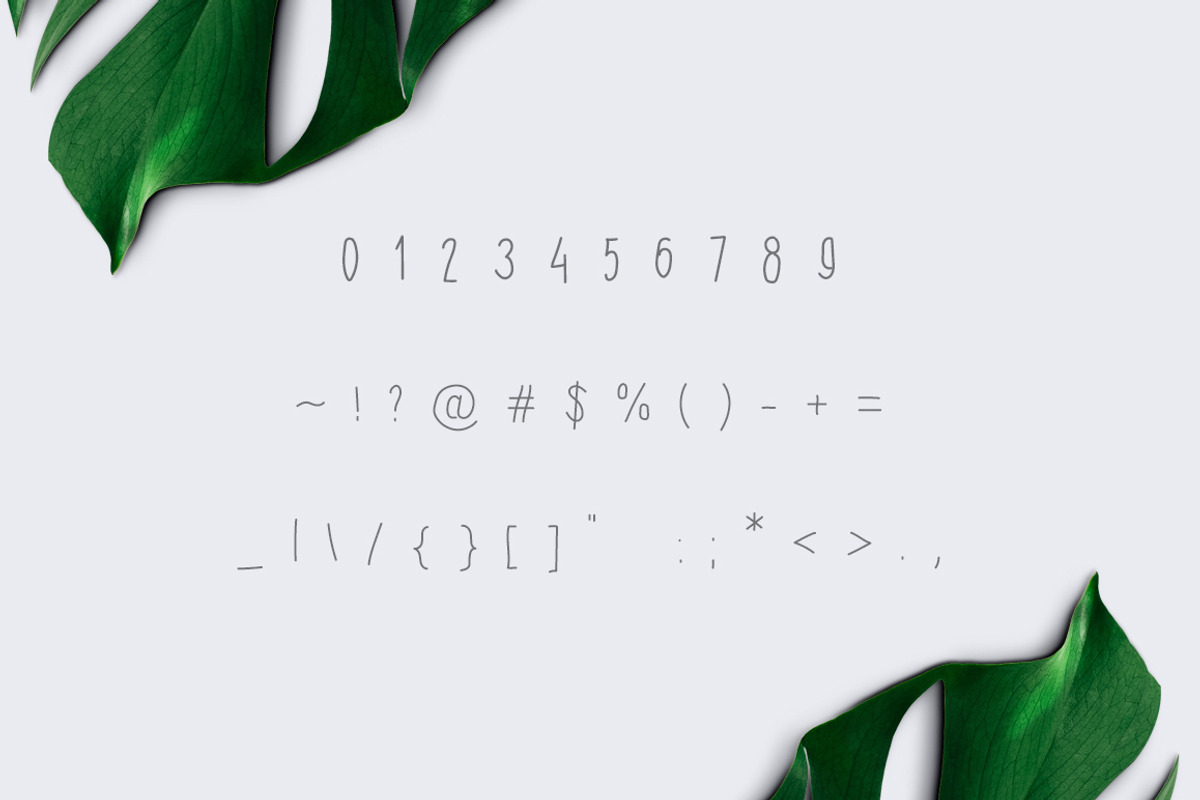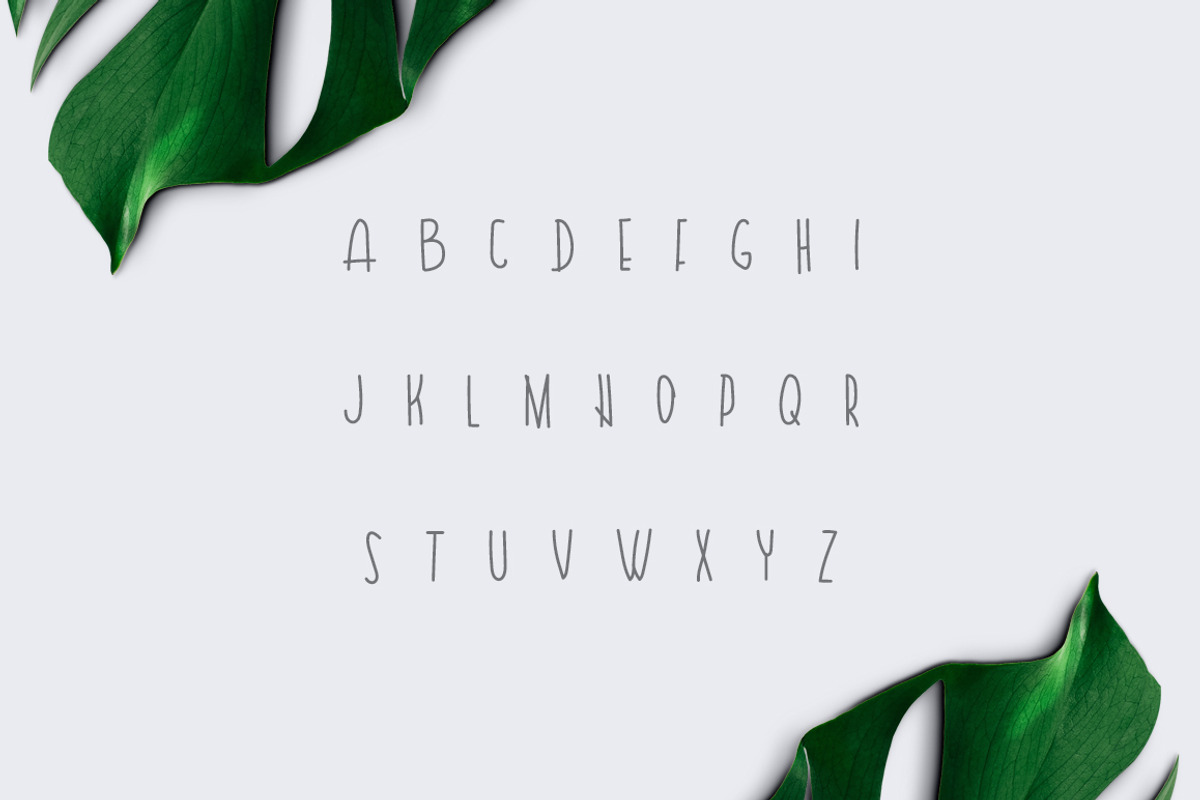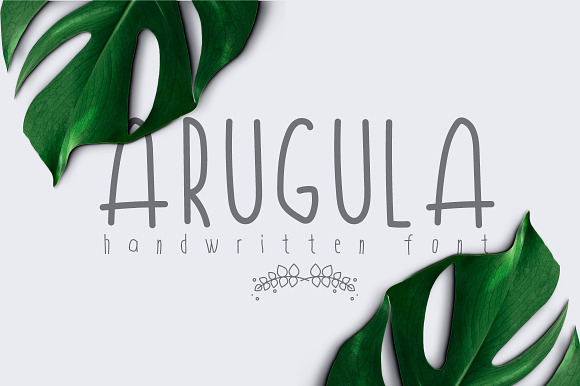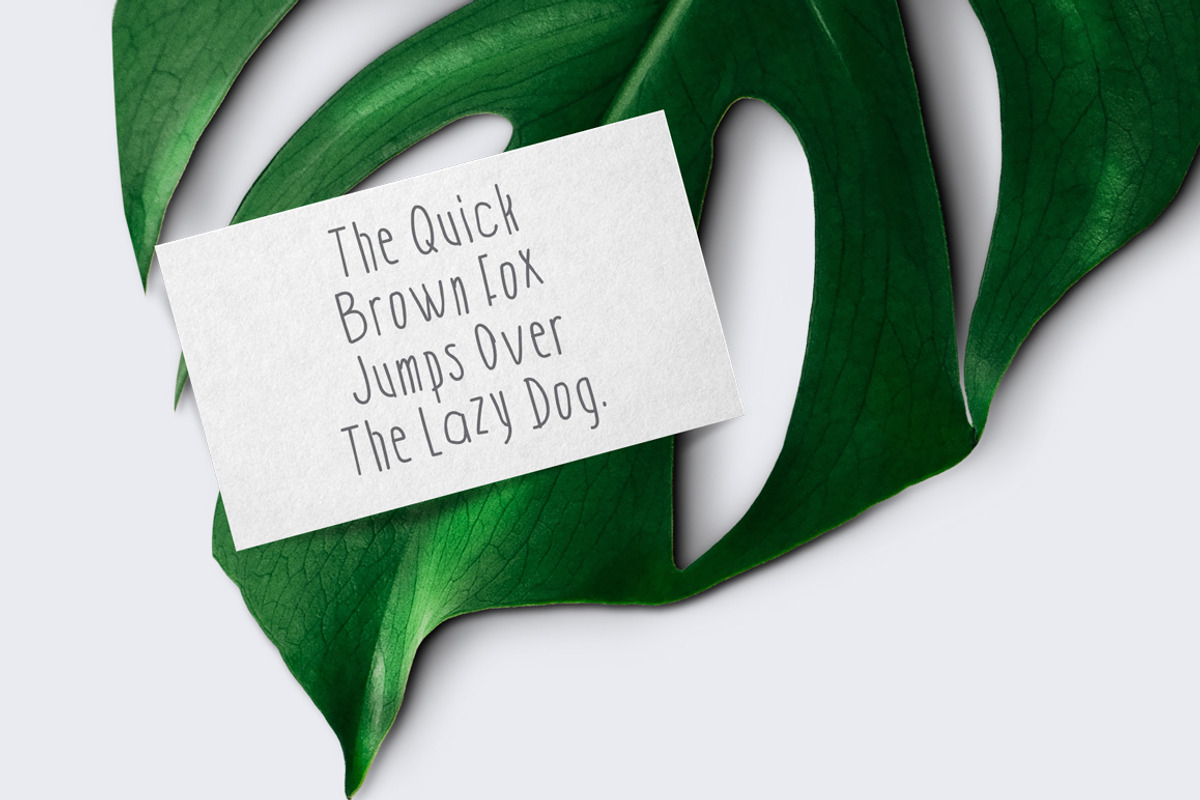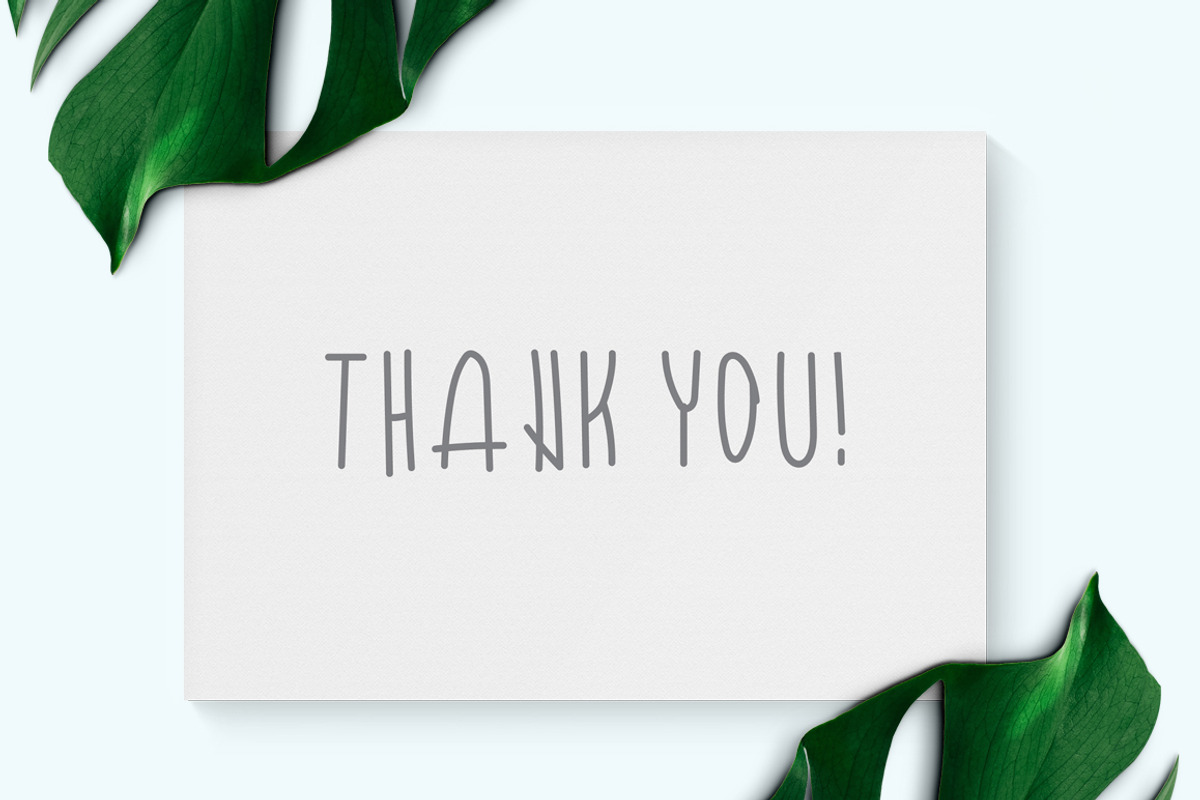
Arugula Font
Arugula is a unique typeface.
This amazing handmade font would be perfect for quotes, logos, clothing brand, design greeting, prints, web design, invitation, business cards, cafe and much more. Arugula packs a set of uppercase and lowercase, numbers and punctuation.
Uppercase and lowercase
Numerals, punctuations and special characters
Why Arugula Font is worth a look
Arugula Font by Alex Blogoodf fits naturally into Branding, posters, packaging, typography.